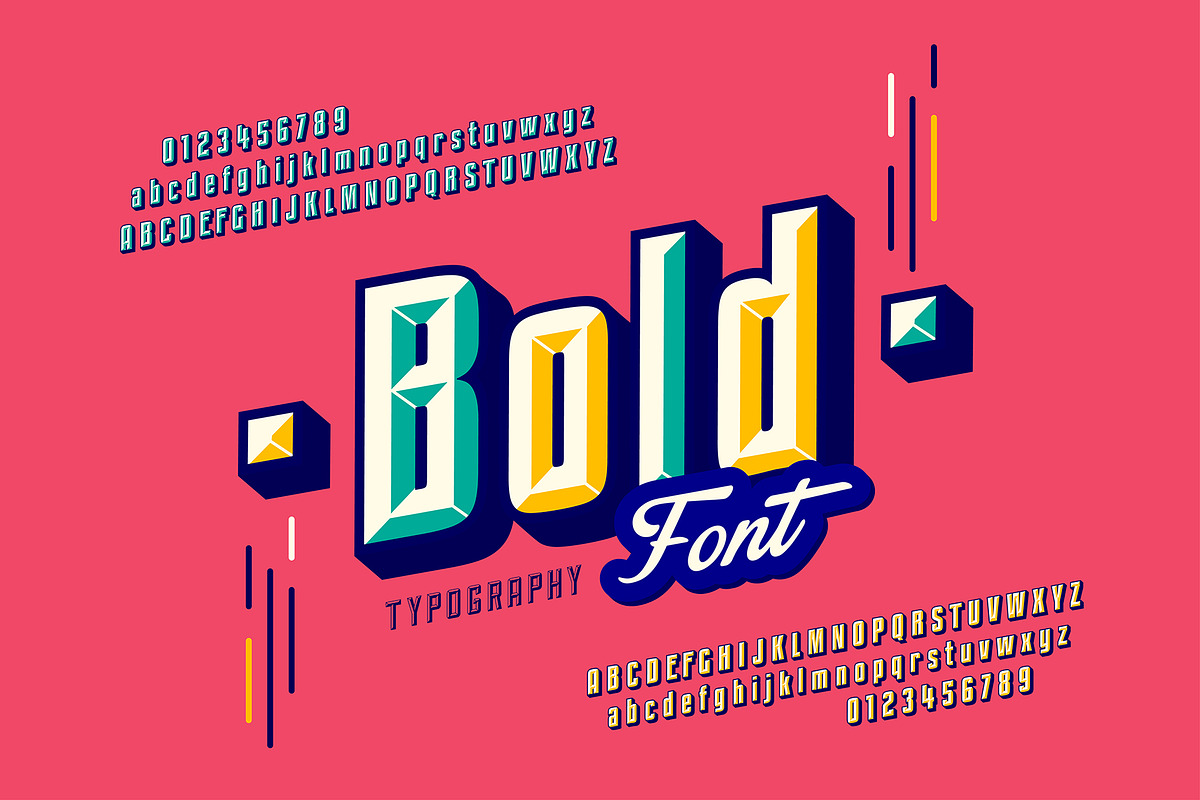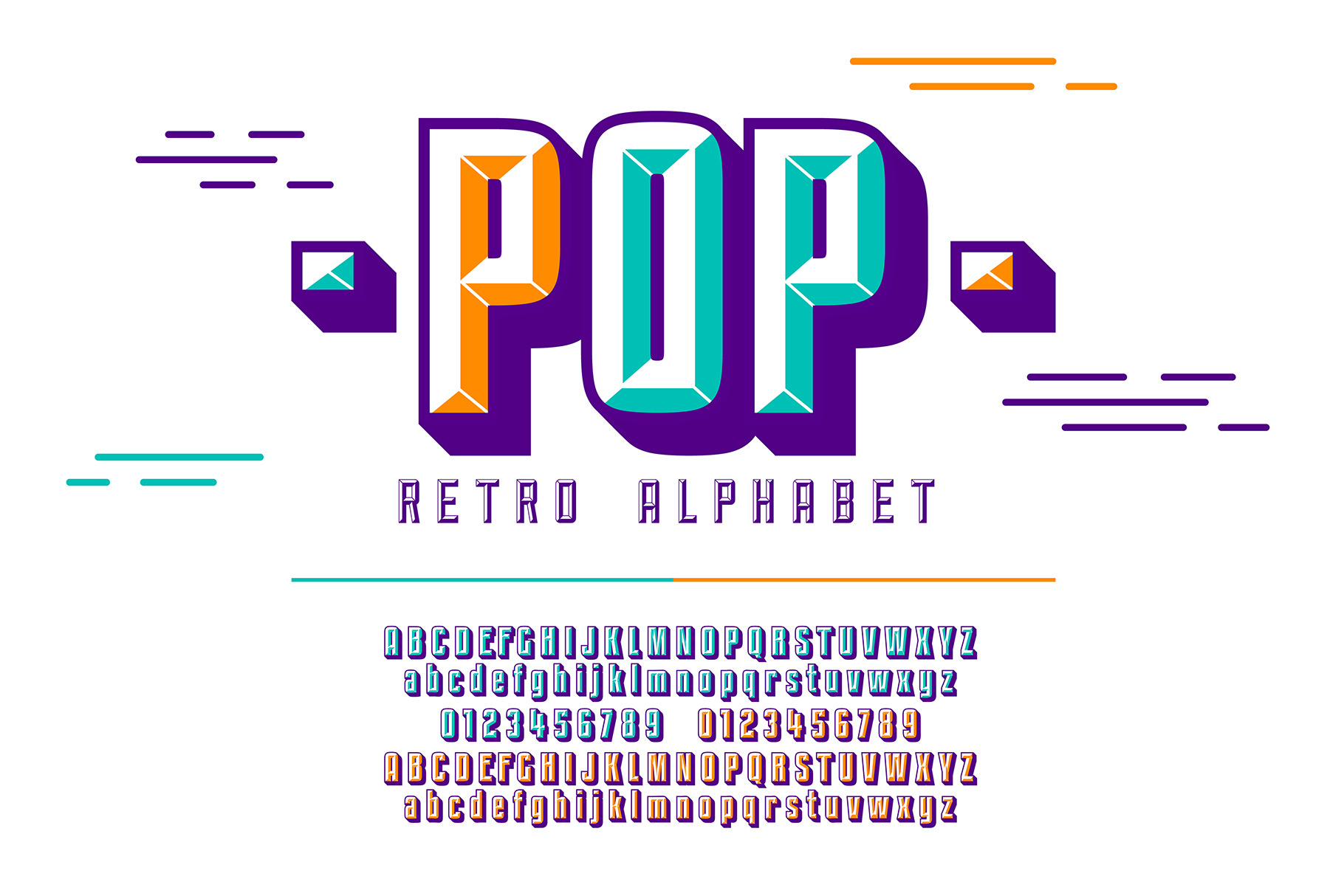
Retro Pop Art Alphabet Font
Stylish Colorful Retro Pop Art Alphabet Font with Uppercase, Lowercase and Numbers. Creative Oblique Typeface for Posters, Headlines and Modern Design - EPS (Not a Font!)
- Uppercase letters A - Z (italics and normal)
- Lowercase letters A - Z (italics and normal)
- Numbers 0 - 9 (italics and normal)
- Clean, modern, and unique alphabet design
Branding, logos, social media posts, digital scrapbooking, invitations, posters, merchandise, and more!